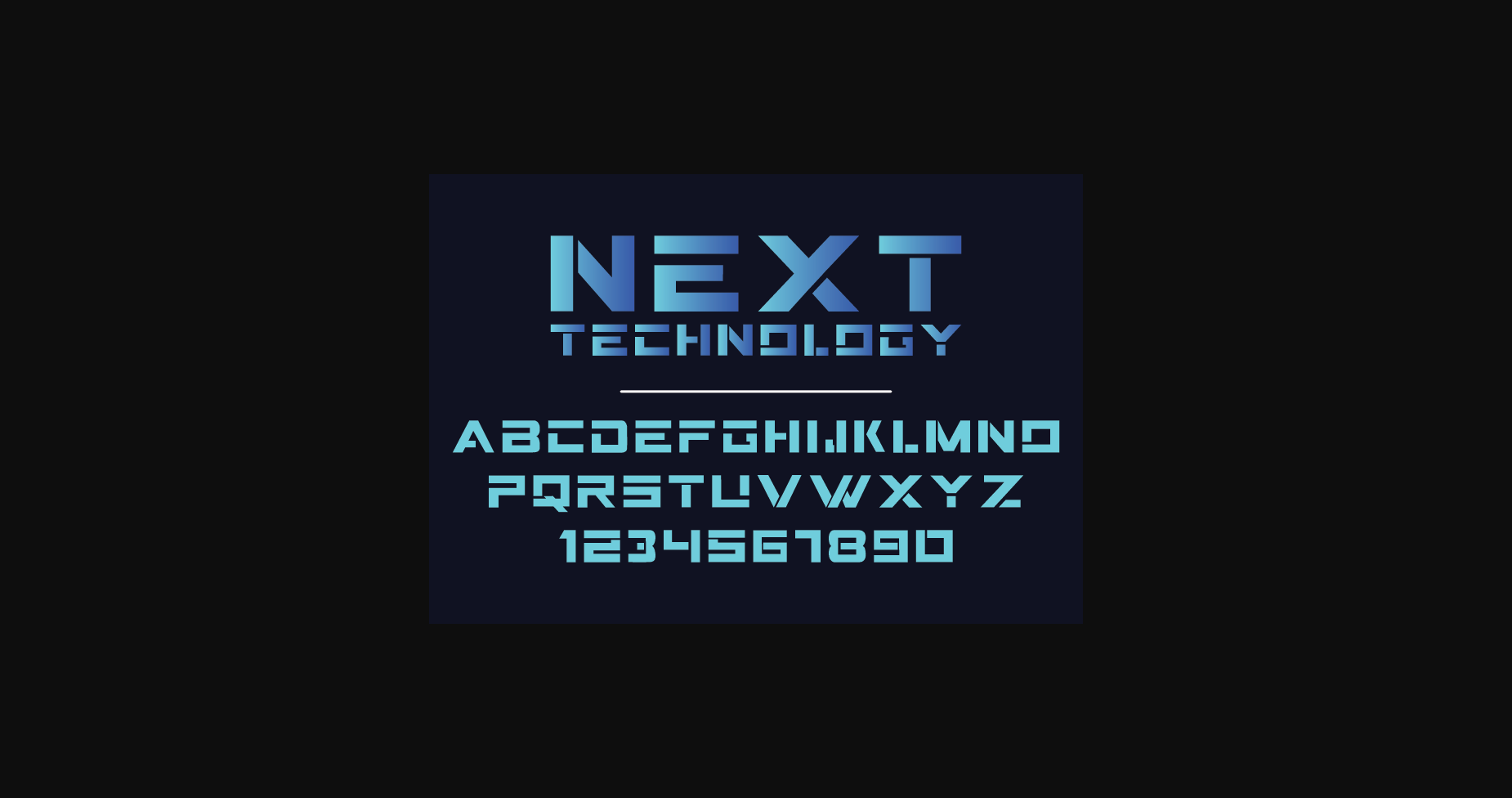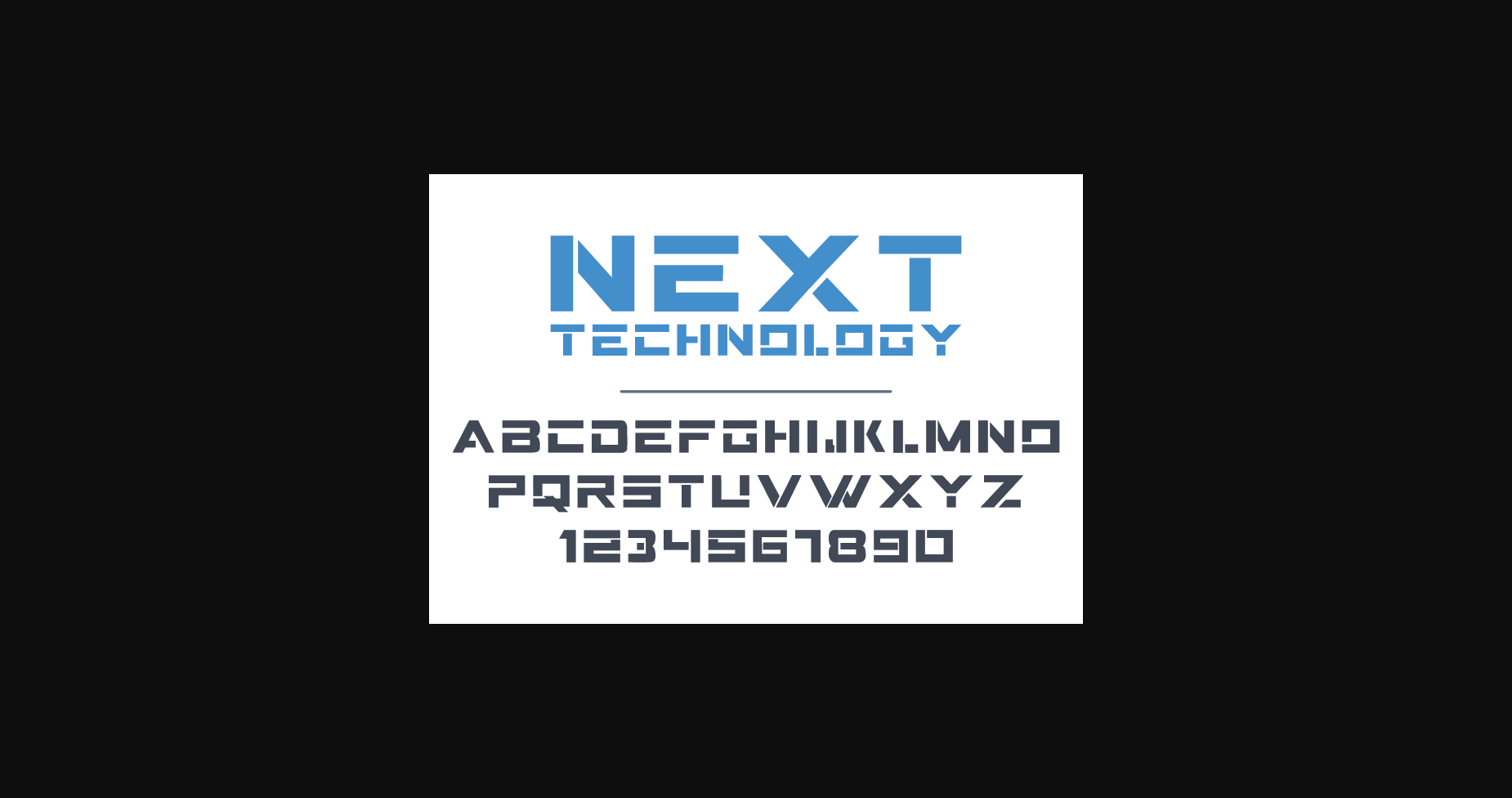
Next Technology Font
About Next Technology Font
Next Technology is the perfect choice for any design project that requires a futuristic and high-tech look. With its sleek lines, sharp edges, and circuit-like patterns, this font creates a sense of technological sophistication and innovation. Ideal for digital designs, branding, and any project that requires a cutting-edge and dynamic aesthetic.